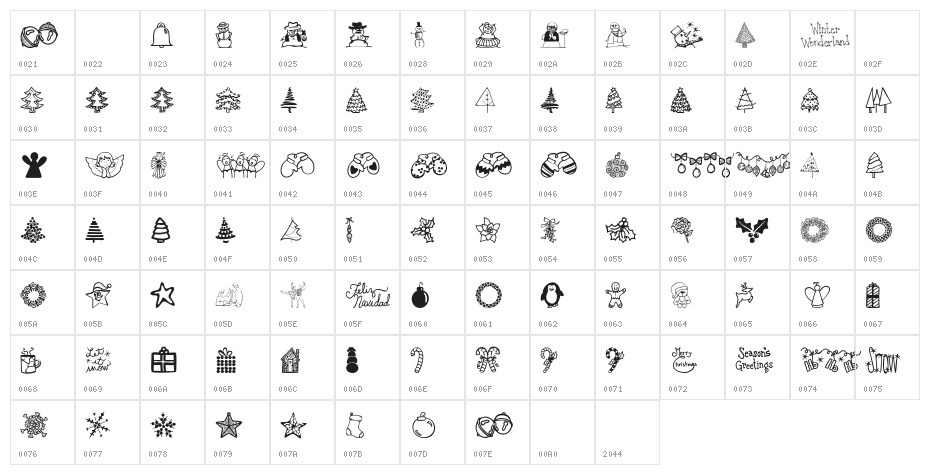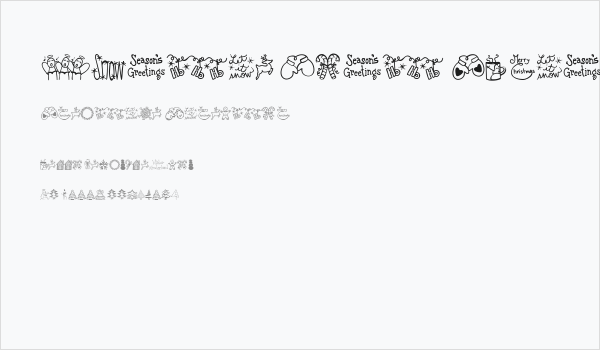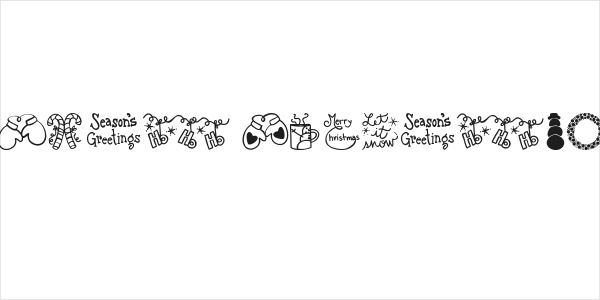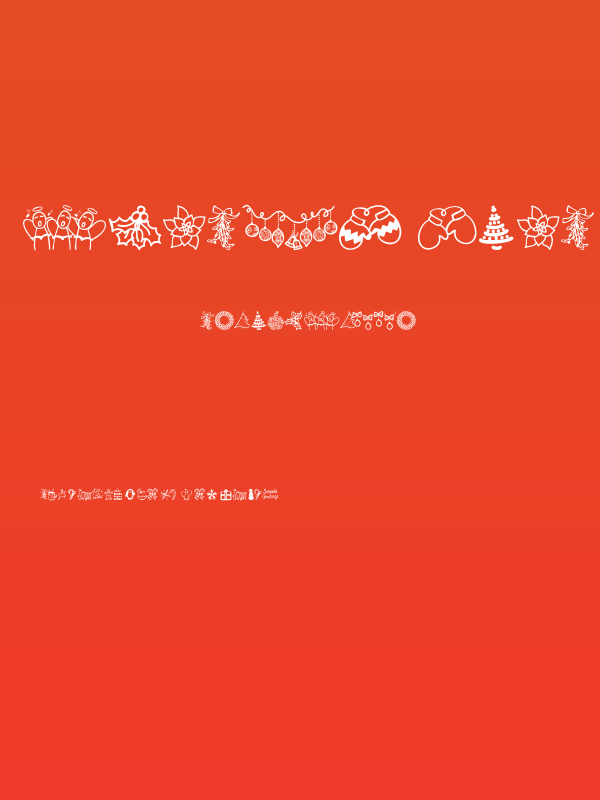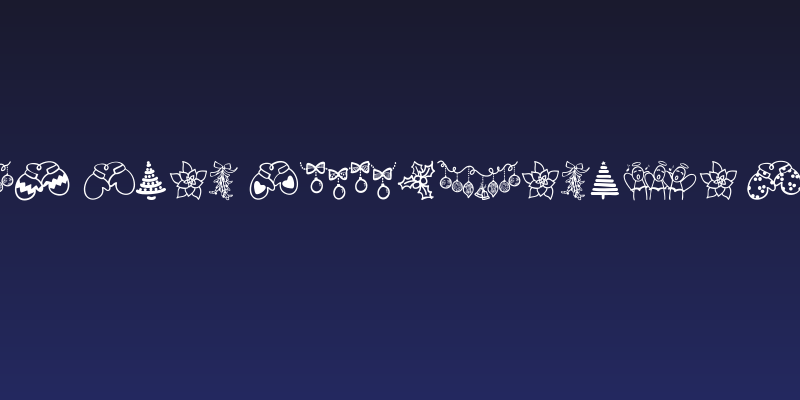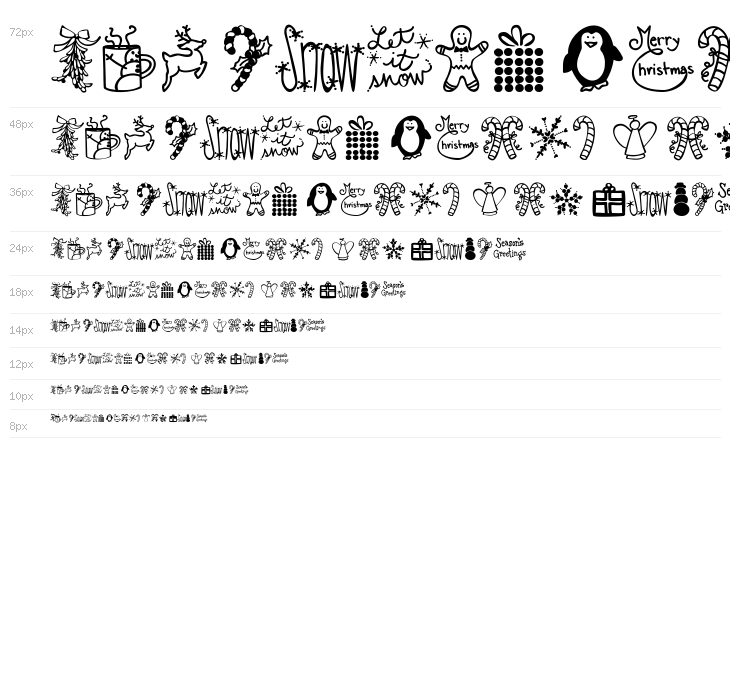
Austie Bost Christmas Doodles Font
Austie Bost Christmas Doodles Description
This is a decorative font featuring a variety of Christmas-themed doodles. The designs include whimsical illustrations of holiday elements such as Christmas trees, snowflakes, ornaments, candy canes, and festive characters like snowmen and reindeer. Each character is a unique doodle, capturing the playful and joyful spirit of the holiday season. The style is hand-drawn, with a casual and fun appearance that adds a personal touch to any project. The doodles are detailed yet maintain a simplicity that makes them versatile for various uses.
| Use Case | Logos, Headlines, Decorative elements |
| Proposed Projects | Ideal for holiday greeting cards, festive invitations, seasonal decorations, and Christmas-themed crafts. |